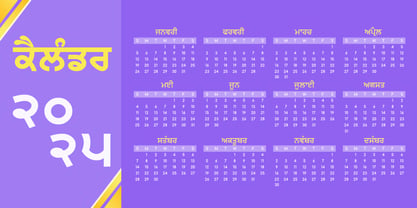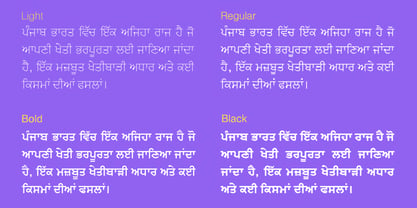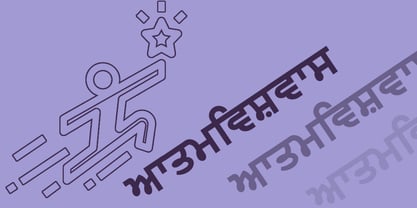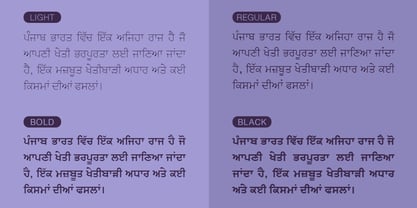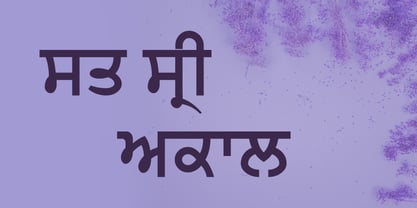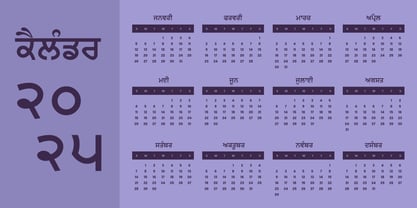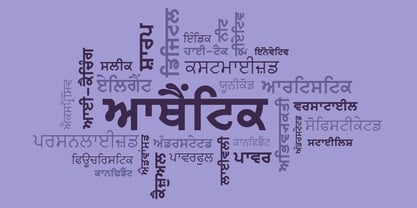
Shree Punjabi 0951
von Modular InfoTech
Die Schriftfamilie Shree Punjabi 0951 wurde von Modular Infotech entworfen und von Modular InfoTech veröffentlicht. Shree Punjabi 0951 enthält 8 Stile und Familienpaketoptionen. Mehr über diese Familie
Shree Punjabi 0951 is a clean, modern Gurmukhi font characterized by its elegant and straightforward design. Its balanced strokes and clear letterforms make it highly legible, suitable for a variety of print and digital media. The font is designed to deliver excellent readability, even at small point sizes. It is available in multiple weights—Light, Regular, Bold, and Black plus Italics. This font offers versatility for different design needs, from headings to body text. Its contemporary style makes it ideal for conveying professionalism while maintaining cultural authenticity.
Shree Punjabi 0951 is perfect for branding materials, headlines, posters, and banners that aim to communicate clarity and modernity. It works well in advertising campaigns, digital interfaces, educational content, news agencies, and cultural event promotions. The font’s adaptability across weights allows designers to create hierarchical typography, emphasizing key messages effectively. Its readability also makes it suitable for official documents, websites, and mobile applications. It is best suited for broadcast media channels.
Designer: Modular Infotech
Foundry: Modular InfoTech
Modular Infotech (formerly Modular Systems), based in Pune, India, was established in 1983 to advance Indian scripts in the Printing Industry. The company began its journey by developing CRT-based phototypesetters (PTS100), which were launched in 1987. Without font generator tools, Modular created a proprietary font format, continuously enhancing it to meet evolving needs. Collaborating with artists across India, they built the Nation’s most extensive collection of original typefaces for all Indian Scripts.In 1989, Modular launched DOS-based software paired with Indic keyboard handlers using its proprietary font format. Adapting to technological advancements, they transitioned to industry-standard formats like TrueType (TTF) and Adobe Type1, culminating in the launch of their flagship multilingual software, Shree-Lipi, in 1991. This period also marked the rise of laser printers, prompting further innovation. The company later embraced OpenType font formats introduced by Microsoft, ensuring seamless compatibility with modern platforms.Today, Modular Infotech is renowned for possessing the world’s most extensive Indic fonts., designed to support India’s diverse linguistic heritage. Their fonts cover over 15 Indian languages, including Devanagari, Gujarati, Gurmukhi, Bangla, Assamese, Manipuri, Odia, Tamil, Kannada, Telugu, Malayalam, and Vedic Sanskrit. Each typeface is meticulously crafted for readability, cultural resonance, and aesthetic appeal, enabling authentic communication in regional languages.Modular fonts excel in rendering complex ligatures and unique glyphs, accurately capturing each script's stylistic and cultural nuances. Leveraging advanced OpenType technology, these fonts ensure flawless representation of intricate Indian scripts across print and digital mediums.The extensive font collection serves many industries, including Publishing, Design, Education, Newspapers, and Government sectors. Beyond facilitating multilingual communication, Modular Infotech is vital in preserving India’s linguistic heritage, bridging traditional and modern media needs. The company’s impact extends globally, with prominent International Clients such as Google, Microsoft, Apple, and RedHat relying on its expertise in Indic typography.Through its pioneering efforts and unwavering commitment to quality, Modular Infotech has made regional language content more accessible, visually impactful, and culturally authentic, cementing its place as a leader in Indic font development.